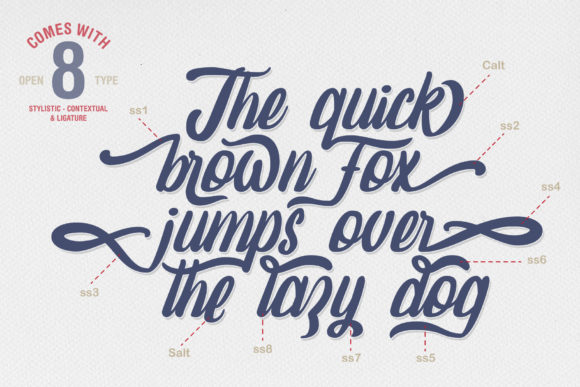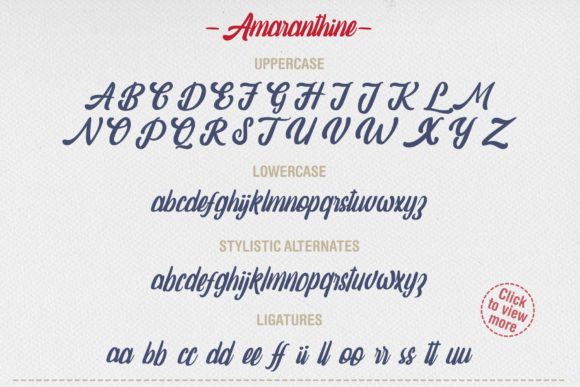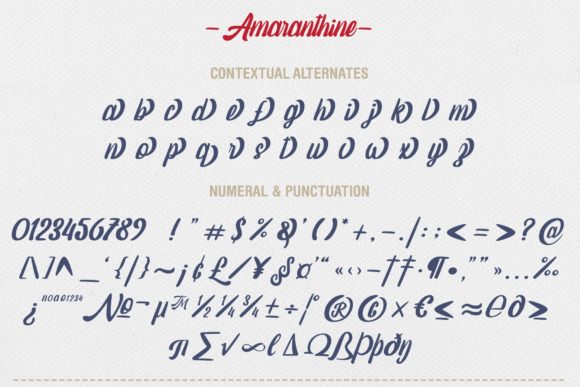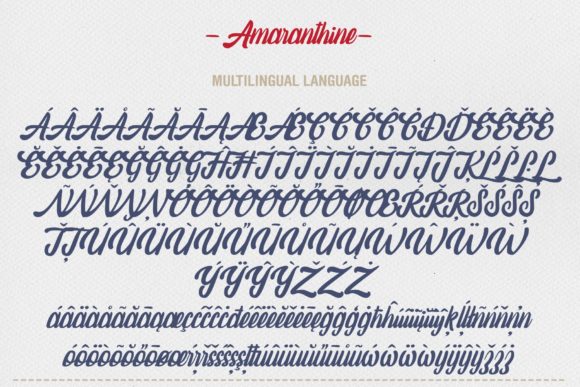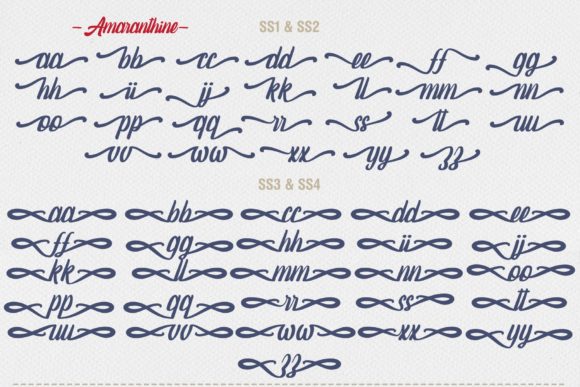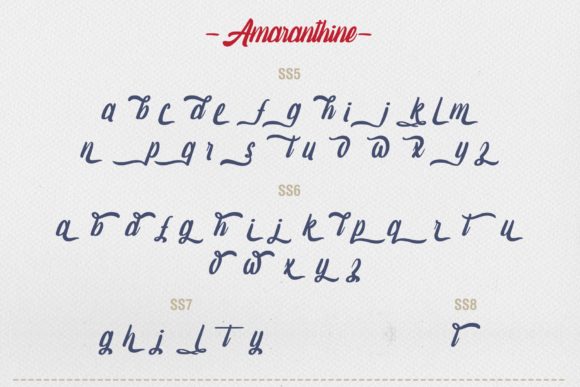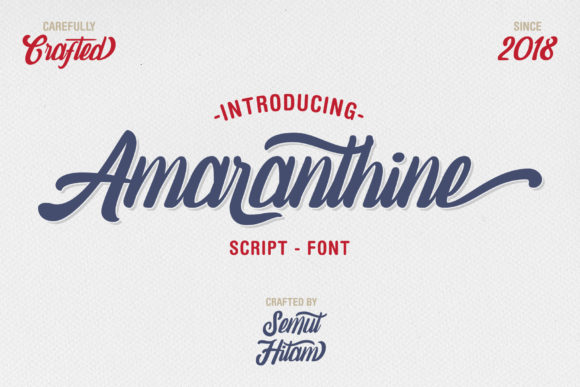
Introducing Amaranthine Script Font: Elevate Your Designs with Elegance and Sophistication
In the world of typography, a font can make or break a design. For designers and crafters seeking to add a touch of elegance and sophistication to their projects, the Amaranthine Script Font is an exceptional choice. This smooth script font boasts a vintage yet striking style that instantly elevates any design, making it stand out from the crowd.
What is Amaranthine Script Font?
The Amaranthine Script Font is a beautifully crafted typeface that exudes a sense of luxury and refinement. Its fluid strokes and intricate details create a visually stunning effect, perfect for a wide range of design applications. Whether you’re working on a logo, branding materials, posters, flyers, greeting cards, invitations, book covers, or quotes, this font is sure to impress.
Key Features of Amaranthine Script Font
- Vintage yet Modern Style: The Amaranthine Script Font seamlessly blends vintage charm with modern flair, making it versatile enough to suit various design needs.
- Smooth and Elegant: The font’s smooth strokes and elegant lines ensure that your designs look sophisticated and refined.
- Highly Versatile: From logos and branding to posters and book covers, this font can be used across a multitude of design projects.
- Easy to Read: Despite its intricate details, the Amaranthine Script Font remains highly legible, ensuring that your message is communicated effectively.
Uses of Amaranthine Script Font
The Amaranthine Script Font is incredibly versatile, making it suitable for a wide array of design projects. Here are some of the most popular uses:
- Logos and Branding: Create a lasting impression with a logo that exudes elegance and sophistication.
- Posters and Flyers: Draw attention and convey your message in style with eye-catching posters and flyers.
- Greeting Cards and Invitations: Add a touch of luxury to special occasions with beautifully designed cards and invitations.
- Book Covers: Make your book stand out on the shelves with a captivating cover design.
- Quotes and Typography Art: Create stunning typography art pieces that inspire and motivate.
Why Choose Amaranthine Script Font?
With so many fonts available, why choose Amaranthine Script Font? Here are a few compelling reasons:
- Unique Style: The Amaranthine Script Font offers a unique blend of vintage and modern elements, setting it apart from more common fonts.
- High Quality: Crafted with attention to detail, this font is of exceptionally high quality, ensuring it looks great in any design.
- Support for Multiple Languages: The Amaranthine Script Font supports multiple languages, making it a great choice for international design projects.
Tips for Using Amaranthine Script Font
To get the most out of the Amaranthine Script Font, consider the following tips:
- Pair with Complementary Fonts: Combine the Amaranthine Script Font with simpler fonts to create visual interest and hierarchy in your designs.
- Experiment with Colors: Take advantage of the font’s elegance by experimenting with different colors and gradients.
- Play with Sizes: Use varying font sizes to create emphasis and add depth to your designs.
The Amaranthine Script Font is a powerful tool for designers and crafters looking to add a touch of elegance and sophistication to their projects. With its unique blend of vintage charm and modern style, this font is sure to make any design stand out. Whether you’re working on a logo, poster, book cover, or typography art, the Amaranthine Script Font is an excellent choice. So why wait? Download the Amaranthine Script Font today and elevate your designs to new heights!